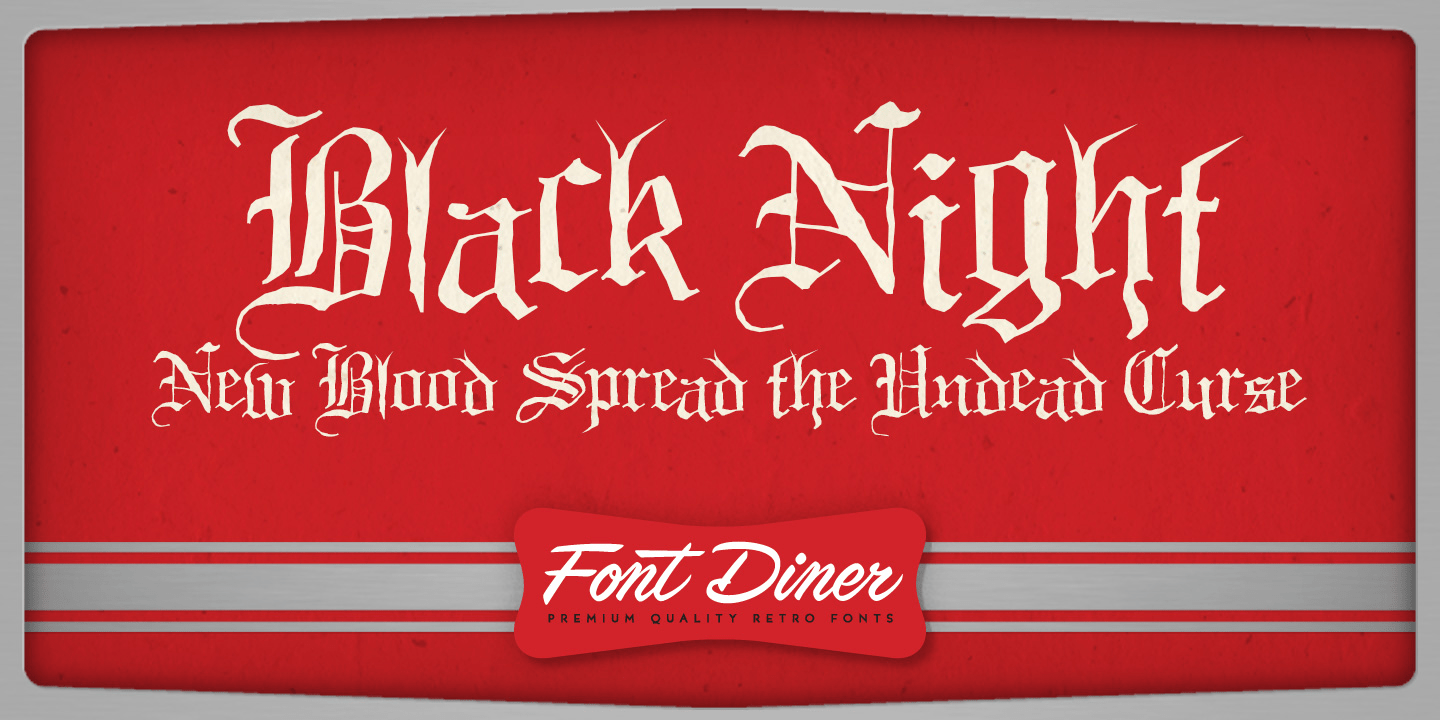
HomeFont BrosHistoricalBlack Night Historical Black Night FacebookXPinterestWhatsApp 1 of 1 About Black Night The thick evening fog fills your lungs as the moon hides behind its own shadow on a Halloween night so scary it can only be called Black Night!  DOWNLOAD NOW People also explored Night Valentine Font Coffee Beans Font Santa Font Turline Font Sarah Font Brilliant Youth Font Masbety Font Hoffman Font Marlina Font 237 0 TagsBlack Night Font Previous articleControllerNext articleNorsy LEAVE A REPLY Cancel reply Comment: Please enter your comment! Name:* Please enter your name here Email:* You have entered an incorrect email address! Please enter your email address here Website: Save my name, email, and website in this browser for the next time I comment. Personal Use Free Capellen Personal Use Free Read more about this font 08 Underground Personal Use Free Read more about this font BD Fluke Personal Use Free Read more about this font Color Personal Use Free Read more about this font BLOG Free Fonts Risk: Why Free Fonts Can Be Dangerous for Designers Free Fonts Risk: Why Free Fonts Can Be Dangerous for Designers Using free fonts is a common practice in web and graphic design. However, the... The 10 Best Handwriting Fonts to Add Personality to Your Designs Best Fonts for YouTube Videos: Make Your Thumbnails Stand Out Best Fonts for T-Shirt Design – Top 2025 Picks